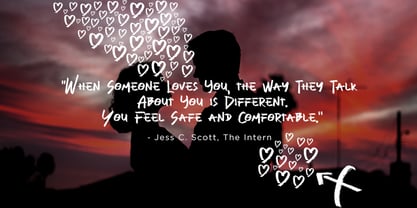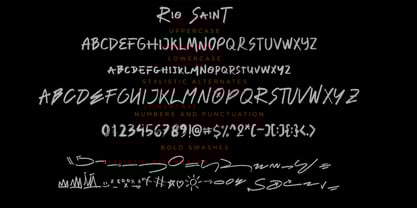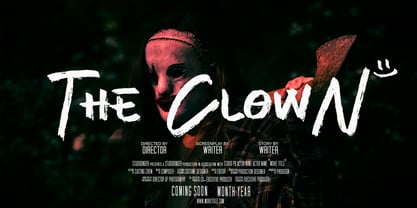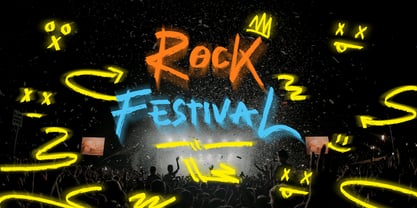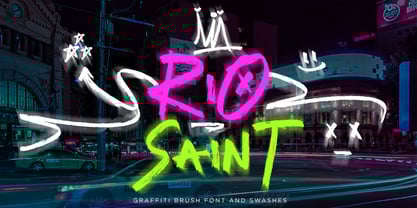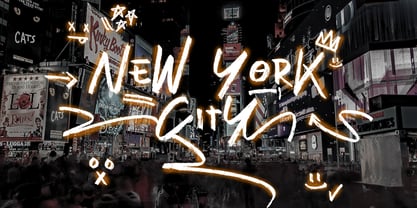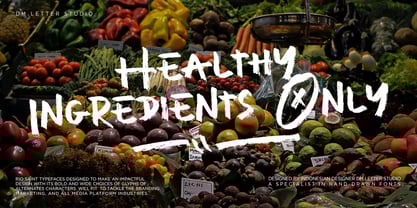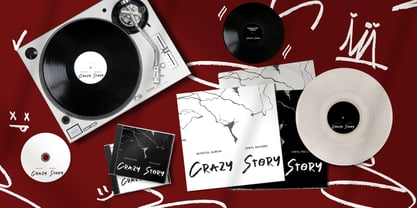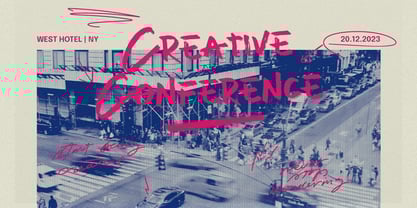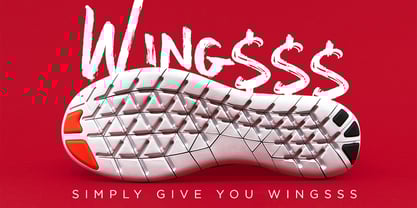
Rio Saint
by DM Studio
The Rio Saint Font Family was designed by Dimas Prasetyo and published by DM Studio. Rio Saint contains 2 styles and family package options.
Rio Saint is a bold and expressive graffiti brush font designed for urban, street-style, and hip-hop-themed projects. With its raw, hand-painted strokes and energetic swashes, this font captures the true essence of street art, making it perfect for edgy and rebellious designs.
Features:
Authentic Graffiti Style – Inspired by real street art, with rough edges and a hand-brushed feel.
Dynamic Swashes & Extras – Includes unique brush swashes to enhance your typography.
Vibrant & Eye-Catching – Perfect for making bold statements in designs.
Versatile Use – Works great for branding, posters, apparel, social media, and more.
Perfect For:
🎨 Urban & Streetwear Branding – Ideal for logos, packaging, and merchandise.
🎵 Music & Event Promotions – Great for hip-hop, EDM, and festival posters.
📱 Social Media Graphics – Make bold and artistic statements in your posts.
👕 Apparel & Merchandise – Perfect for t-shirts, hoodies, and graffiti-inspired products.
Designers: Dimas Prasetyo
Publisher: DM Studio
Foundry: DM Studio